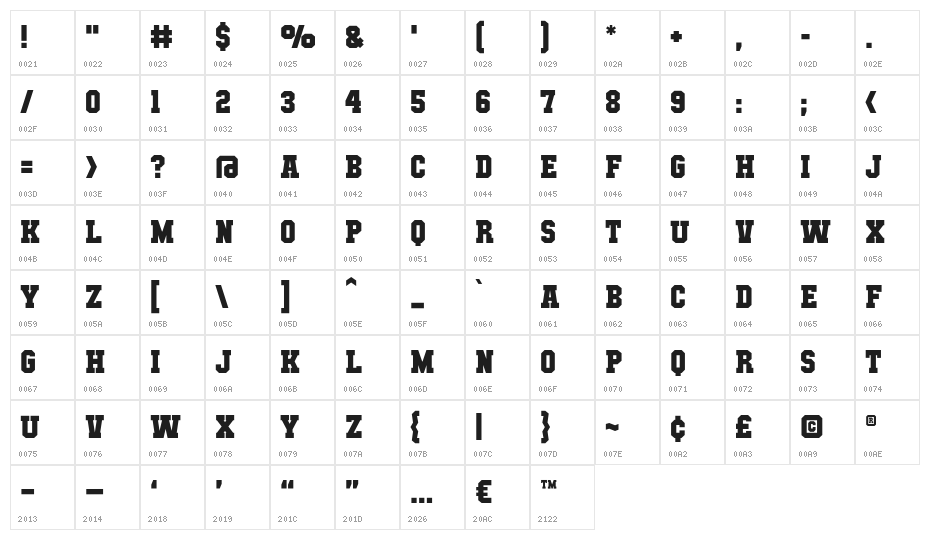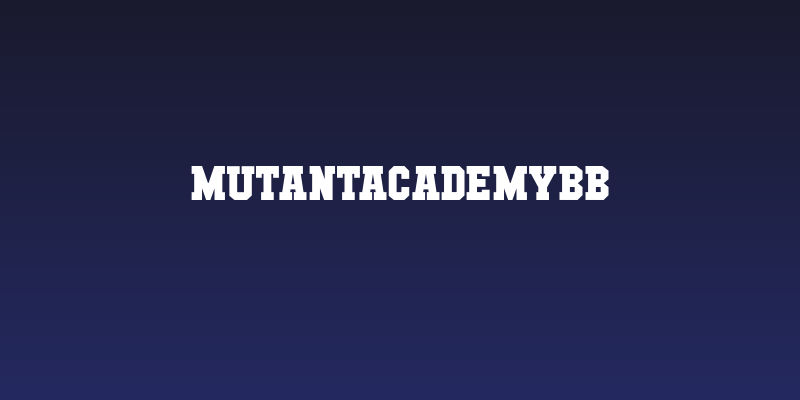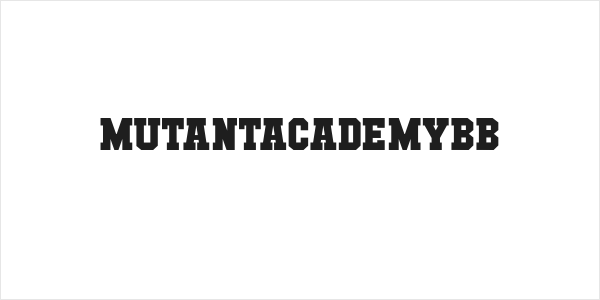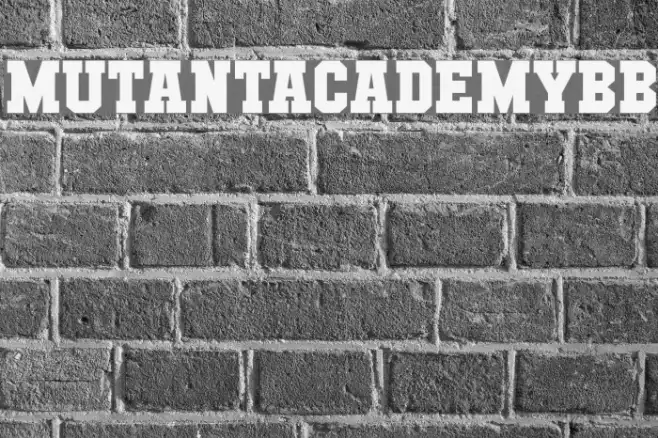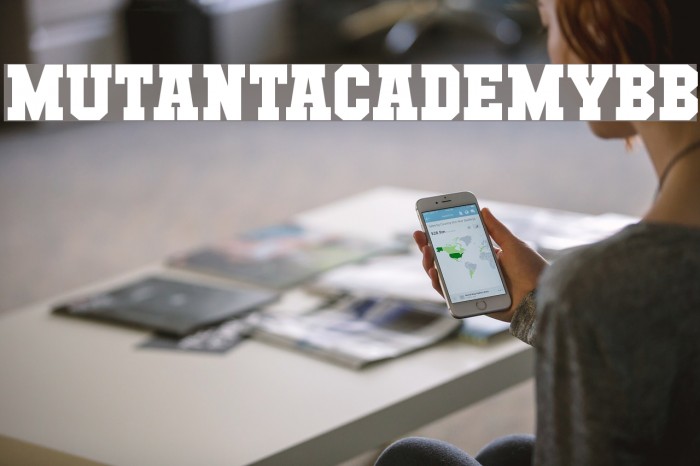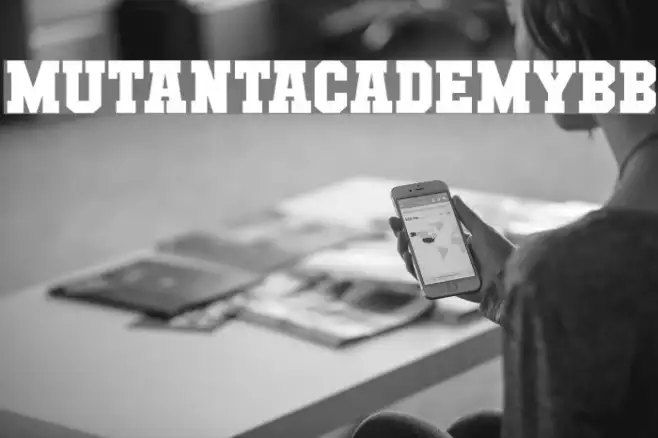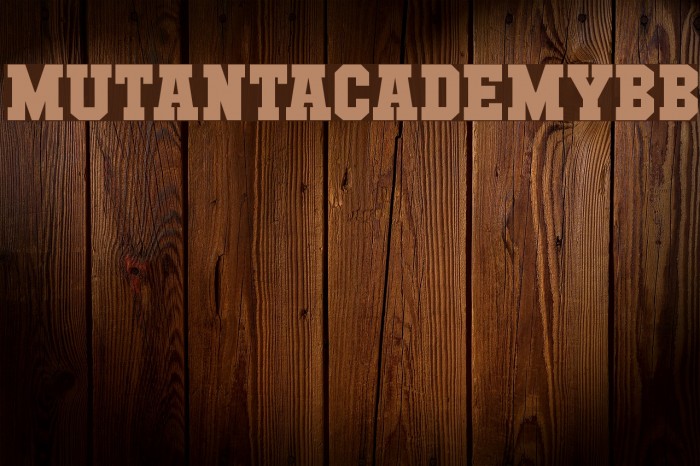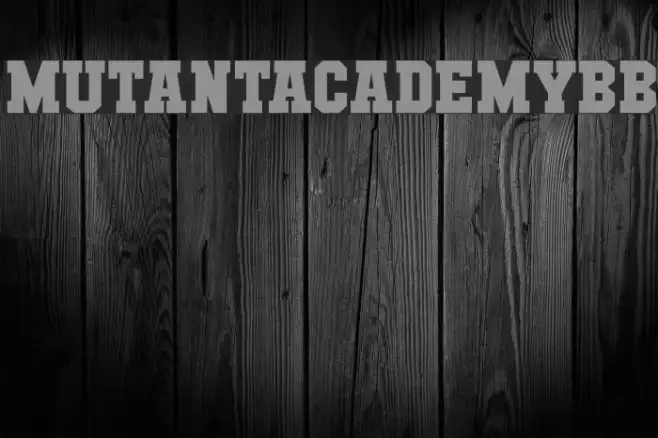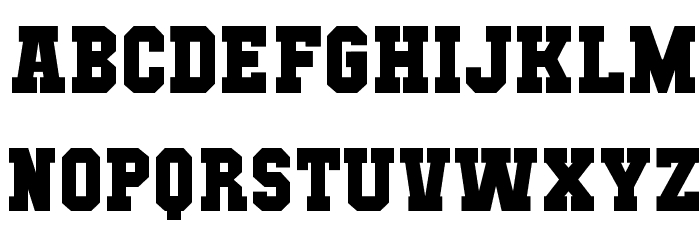
MutantAcademyBB Font
MutantAcademyBB Description
This font features a bold, impactful design with strong geometric shapes and a robust presence. The characters are uniformly wide, with a blocky, slab serif style that conveys strength and stability. The uppercase letters are particularly striking, with thick vertical and horizontal lines that create a sense of power and authority. The numbers and special characters maintain this bold aesthetic, ensuring consistency across all elements. This font's design is reminiscent of collegiate or sports team branding, making it ideal for projects that require a commanding and assertive visual impact.
| Proposed Projects | Perfect for sports team branding, collegiate apparel, posters, and headlines that need a strong visual impact. |